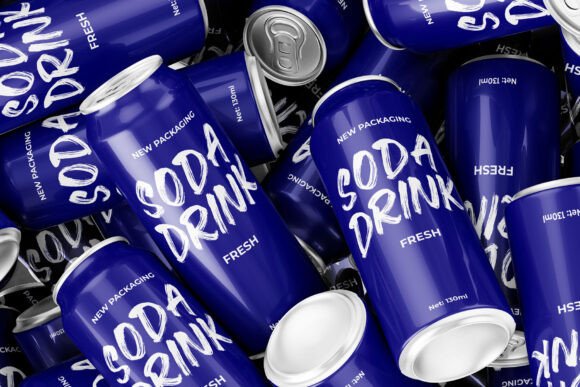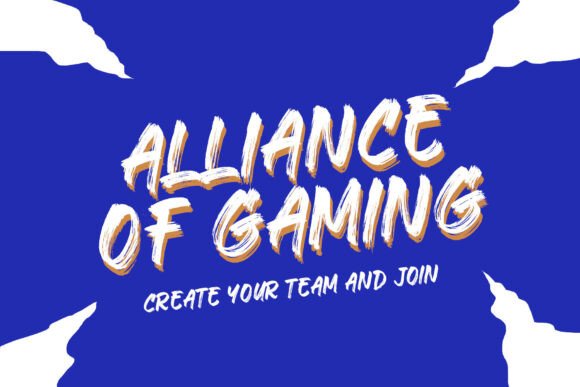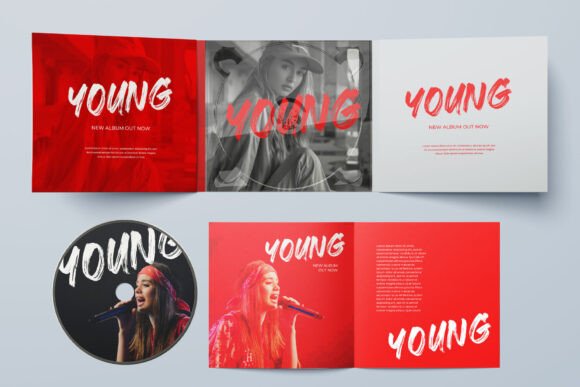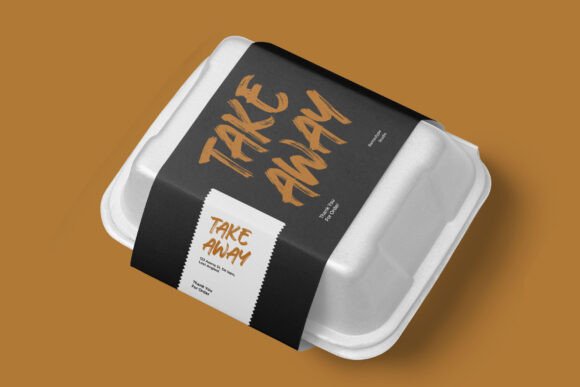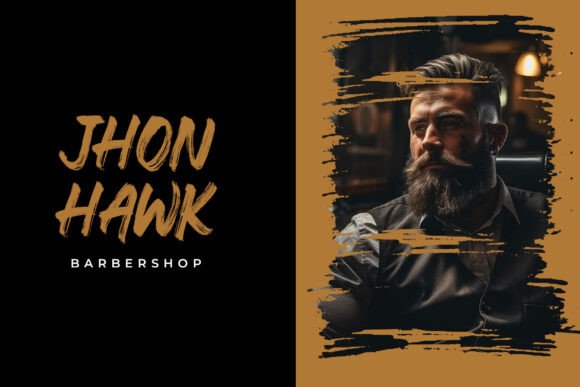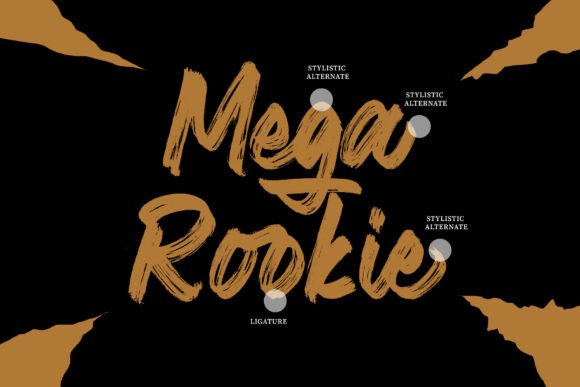
Introduction to Punches Font
Remember the thrill of finding the perfect font for a design project? It’s like stumbling upon a hidden treasure – a game-changer that elevates your creative vision to new heights. For designers, the quest for the ideal font can be a never-ending journey, but what if we told you that we’ve discovered a true gem? Meet the Punches Font, a stunning and versatile typeface that’s about to revolutionize your design endeavors.
With its natural brush style and bold character, the Punches Font is a high-quality design resource that’s sure to leave a lasting impression. Whether you’re working on a free download project or creating a logo, this font is the perfect companion. Its transparent background and sophisticated look make it an ideal choice for a wide range of creative projects, from photography watermarks to corporate branding.
Key Features of Punches Font
- High-quality design: This font features intricate details and unique design elements, making it perfect for adding a touch of elegance to any project.
- Transparent background: Punches Font offers a transparent background, allowing you to easily overlay text on images or other design elements.
- High-resolution design: With a high resolution of 300 DPI, Punches Font is suitable for use in large-scale designs, such as billboards or posters.
- Unique design elements: The font features a range of unique design elements, including intricate patterns and textures, making it perfect for adding a touch of creativity to any project.
- Perfect for creative projects: Punches Font is ideal for use in creative projects, such as graphic design, typography, and digital art.
Honest Review: Punches Font
I recently stumbled upon Punches Font while searching for a free download to spice up my design project. I was excited to give it a try and see how it would work for me.
First off, let’s talk about what works well. ✨ I was impressed by the high quality of the font. The bold lines and playful style make it perfect for creative projects that require a bit of whimsy. The transparent background is also a great feature, as it allows for seamless integration with other design elements.
Here are some of the things I like about Punches Font:
- High quality design
- Playful and bold style
Now, let’s talk about some limitations. ⚠️ While Punches Font is a great resource, it’s not without its flaws. The font can be a bit overwhelming when used in large quantities, and the bold lines can sometimes make it difficult to read in smaller sizes.
Overall, I’d say that Punches Font is a great addition to any design resource library. It’s perfect for creative projects that require a bit of flair, but may not be the best choice for more serious or professional designs.
Punches Font
Using Punches Font in PowerPoint/Word
In PowerPoint or Word, select the text tool and browse through the font library to find Punches Font. You can then adjust the font size, color, and style to fit your presentation or document needs. The versatile design of Punches Font makes it suitable for a wide range of creative projects.
Tips for Getting the Most Out of Punches Font
To get the most out of Punches Font, experiment with different font sizes, colors, and styles to create a unique and eye-catching design. You can also combine Punches Font with other design elements, such as images and graphics, to add depth and visual interest to your project.
Punches Font is perfect for a wide range of creative projects, including graphic design, digital art, and print design. Its high-quality design and versatile style make it suitable for use in logos, branding materials, and marketing campaigns.